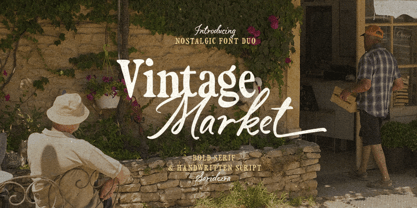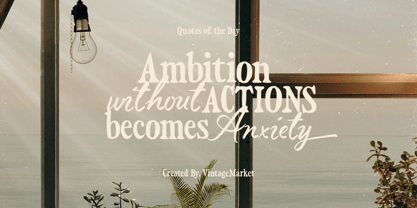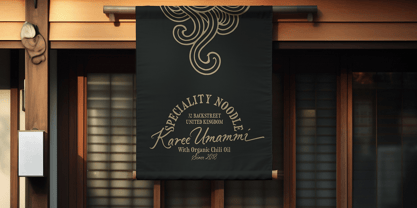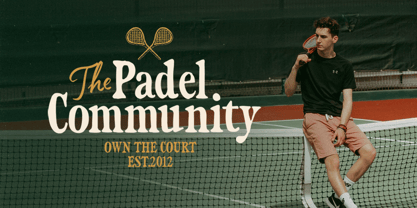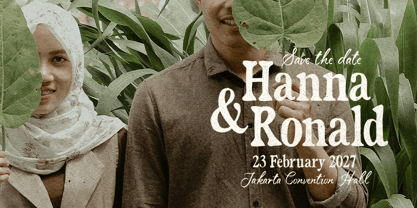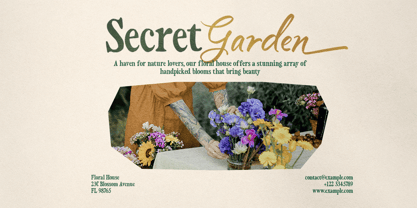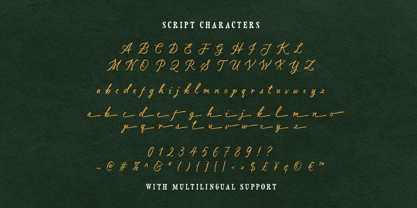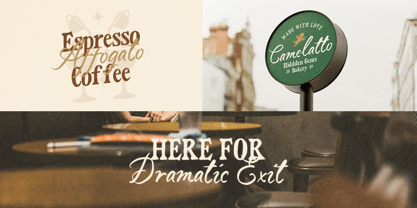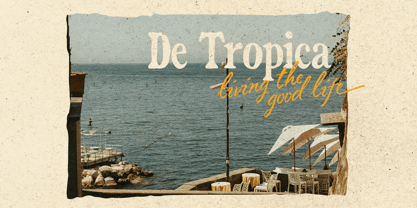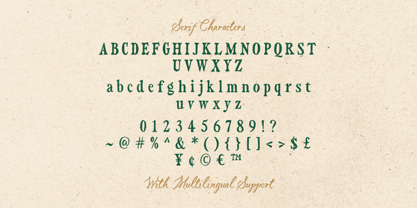
Vintage Market
by Sarid Ezra
The Vintage Market Font Family was designed by Sarid Ezra and published by Sarid Ezra. Vintage Market contains 2 styles and family package options. More about this family
Vintage Market is a handcrafted font duo that contains bold serif with handwritten script. You can use this font duo for a wide range of purposes, especially for designs that call for retro and vintage vibes, such as posters, logotypes, quotes, and branding. Featuring ending alternates in the script font, it allows you to create more expressive and visually appealing designs. This font duo also support multi language!
Designers: Sarid Ezra
Foundry: Sarid Ezra